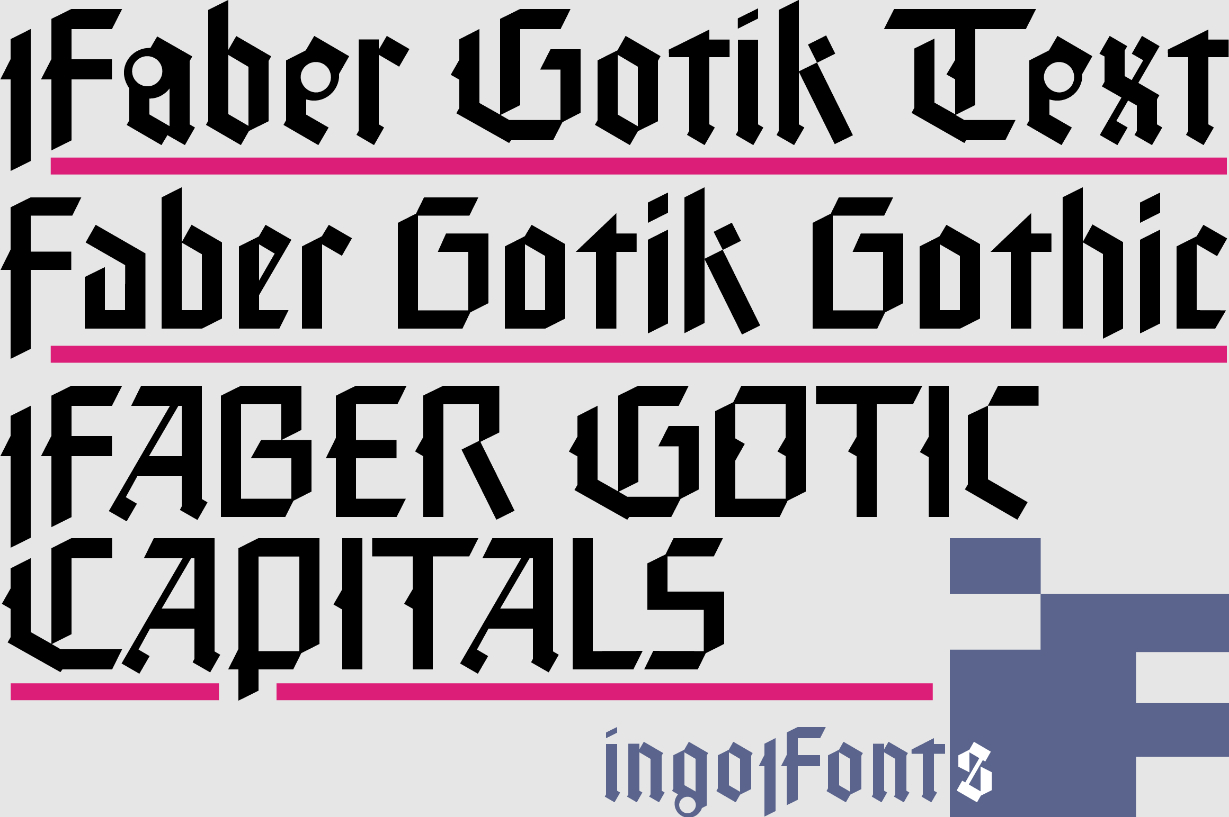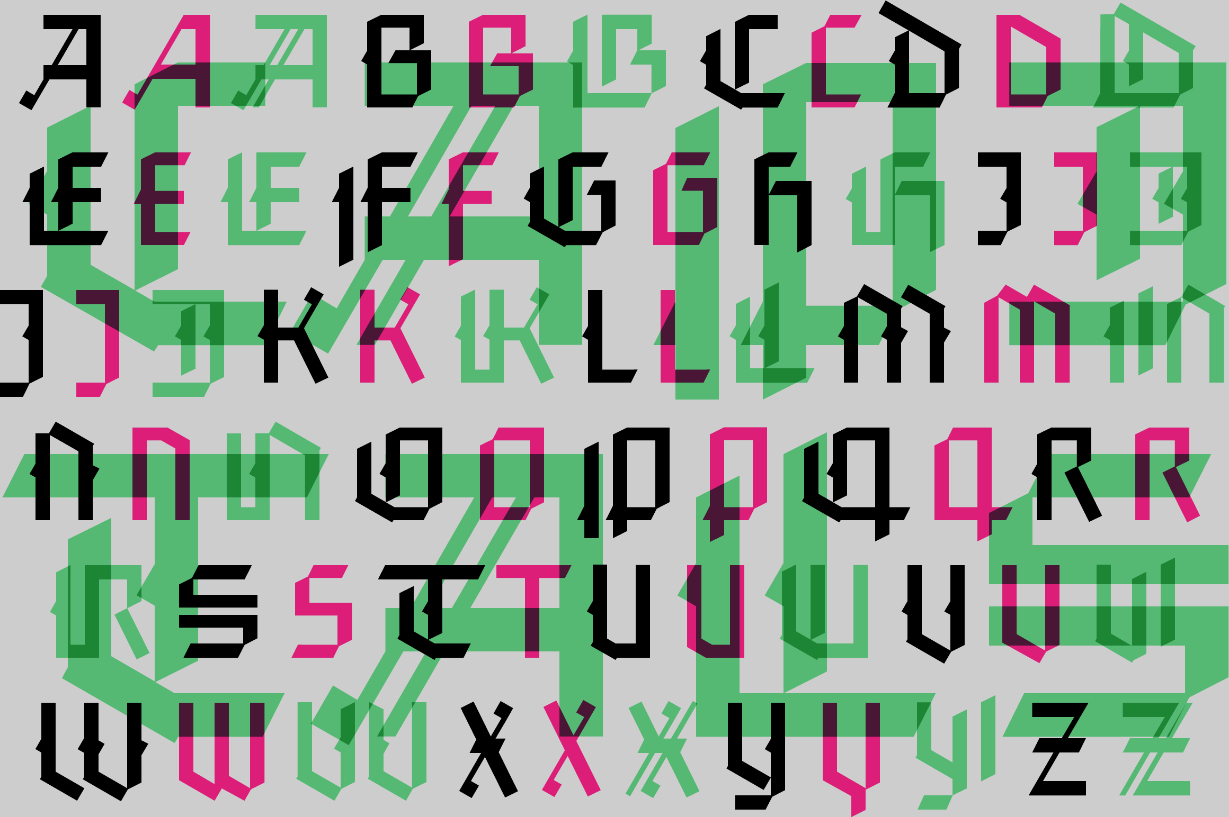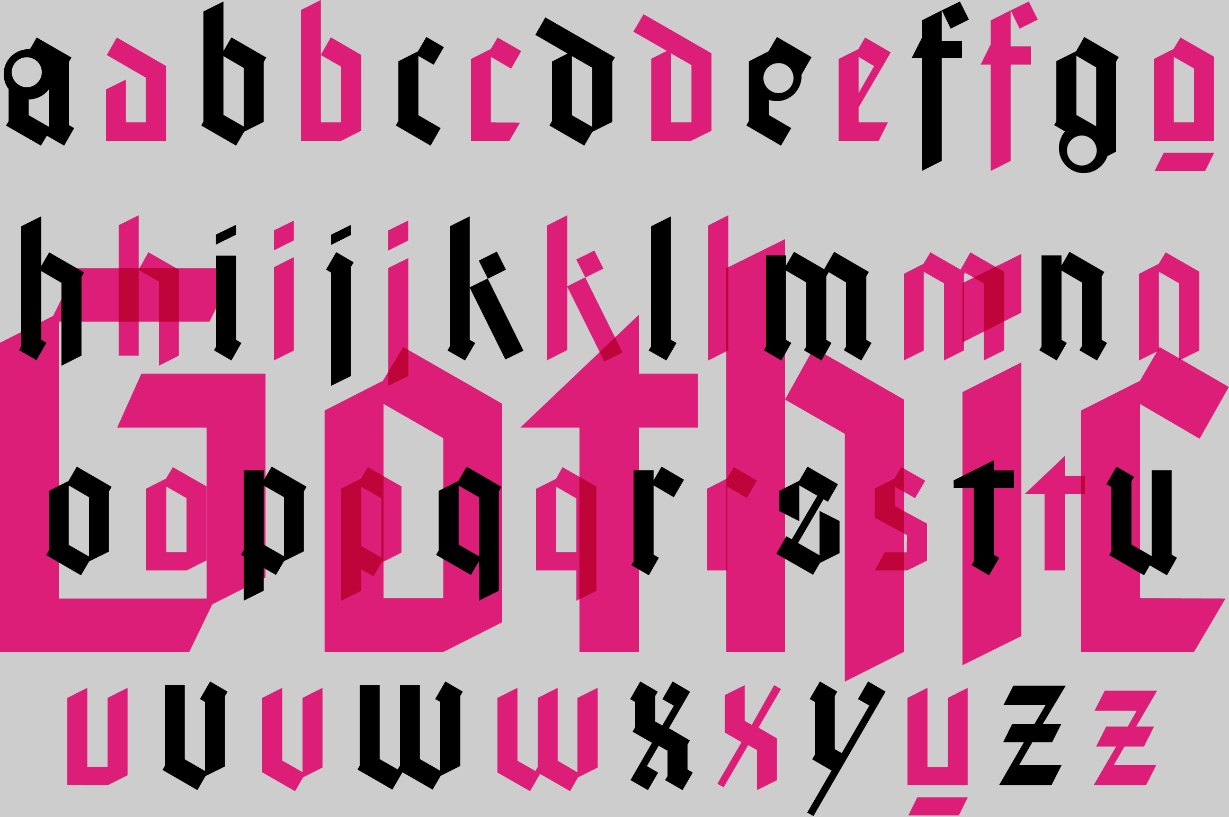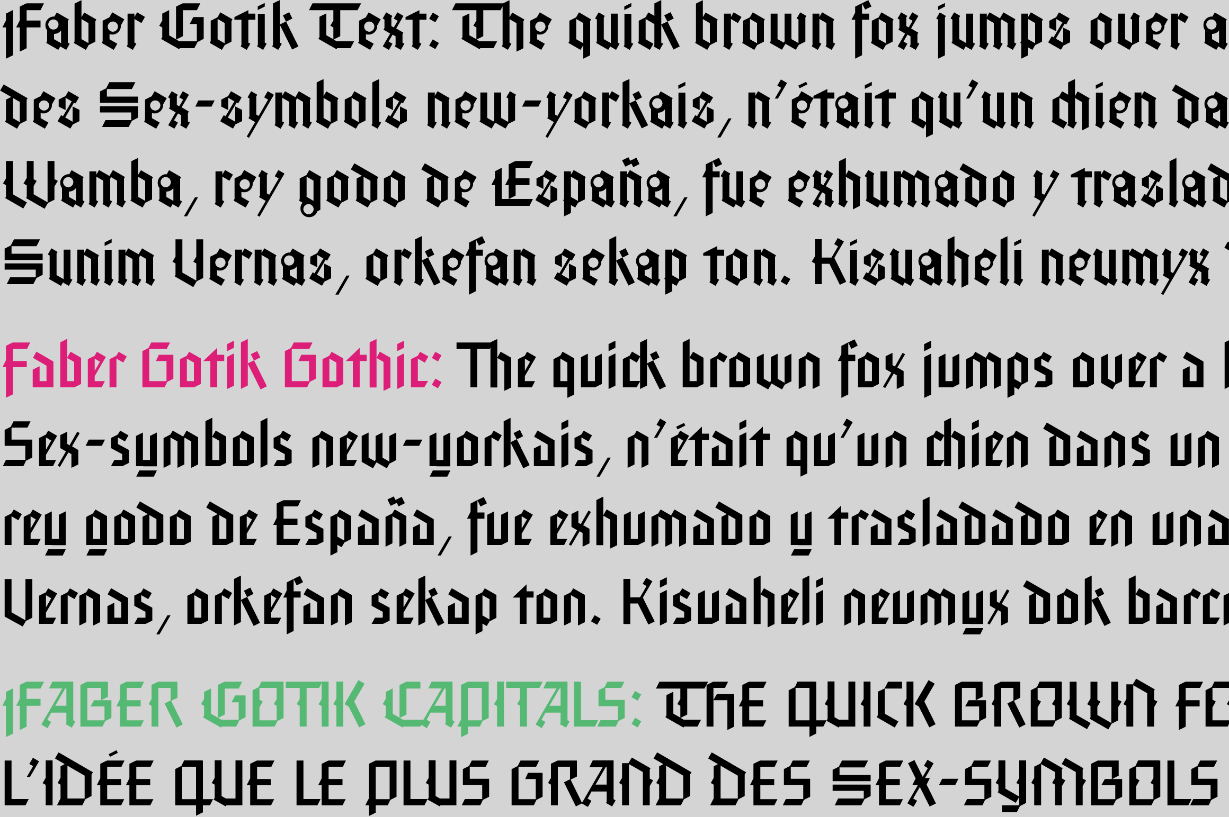
About Faber Gotik Font
Faber Gotik updates a classic Gothic font with a contemporary twist. Get inspired by its bold feel, and turn any design idea into a stand out!